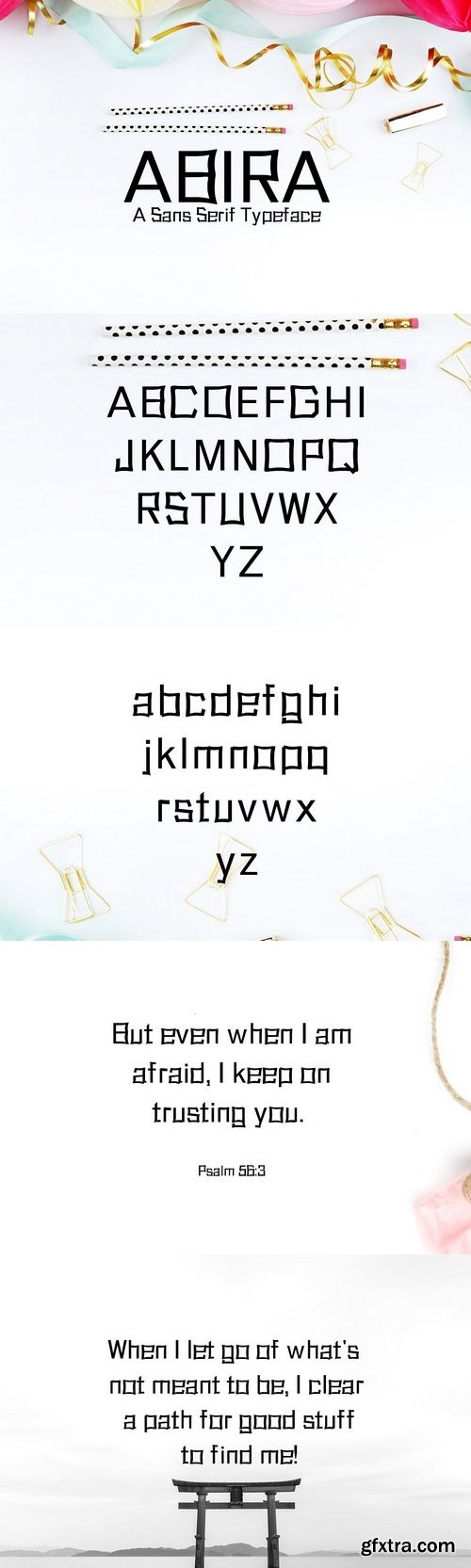
Abira Sans Serif Decoration font is a set of 6 weights fonts. Abira font family is good for making creative templates and stationary. Abira typeface suits best for modern / clean designs, logos, headlines, banners and templates etc. It looks gorgeous in all caps with a wide-set spacing if you want to try a classy look, or beautiful on its own in capital and lowercase letters for something completely timeless.